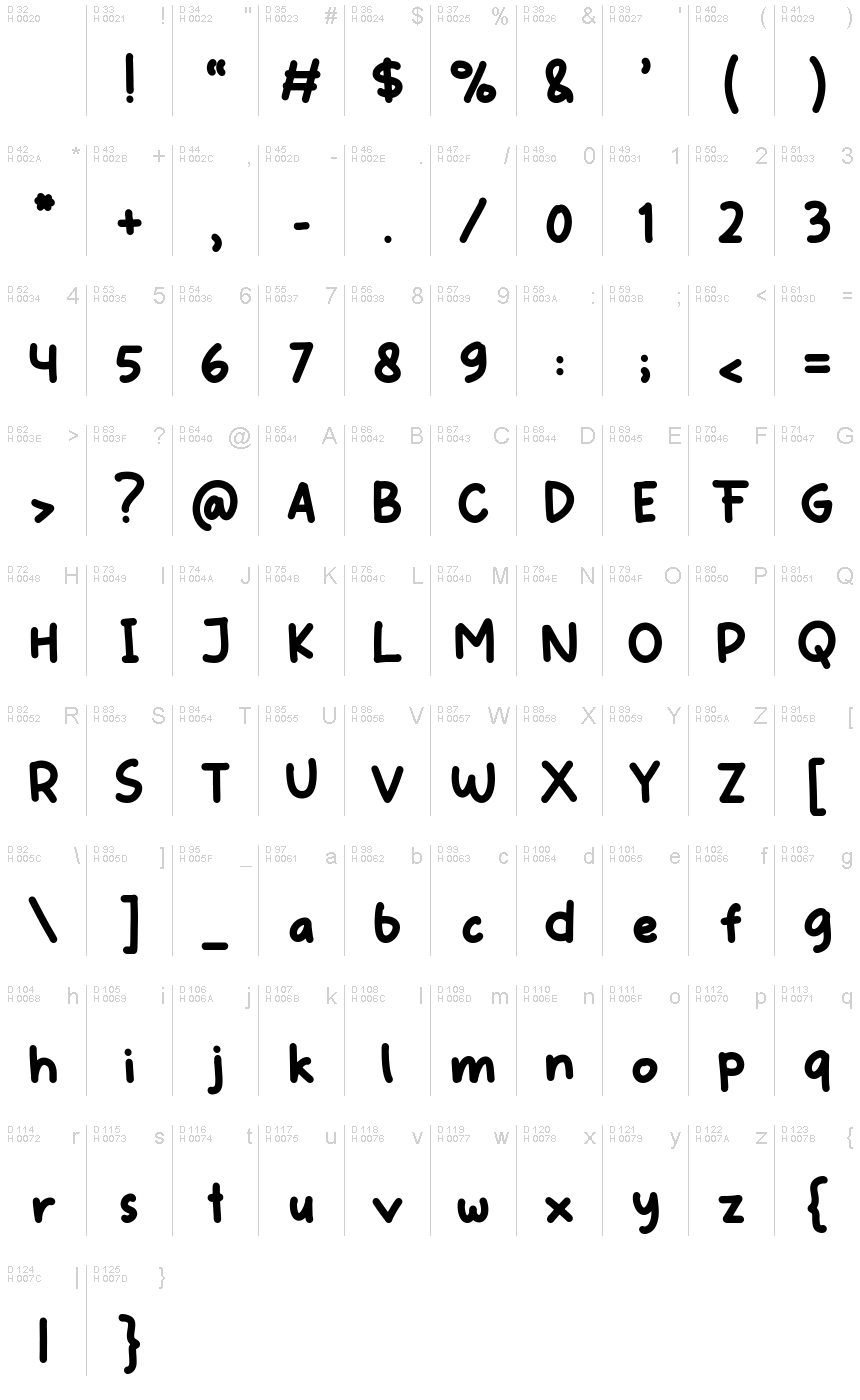
Momain Kidz Regular
Momain Kidz font, designed by Ibra Creative Studio, embodies a playful and vibrant handwritten style that captivates the imagination. Its bold presence exudes confidence and charm, making it perfect for projects aimed at children or those seeking a fun touch. The rounded forms and whimsical curves contribute to its cheerful character, while the distinctive nature of the lettering invites creativity.
This font shines in contexts such as children's books, birthday party invitations, or educational materials where engaging visuals are paramount. Ideal for both digital and print applications, Momain Kidz ensures that messages come across with an enchanting flair. Embrace this lively typeface to bring your designs to life with joy and spontaneity!